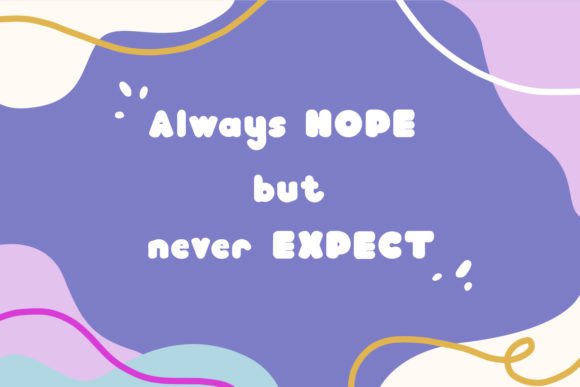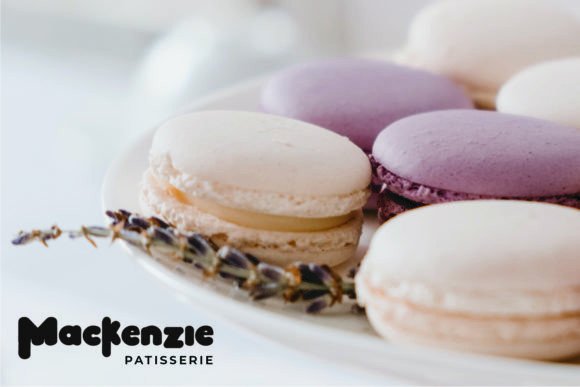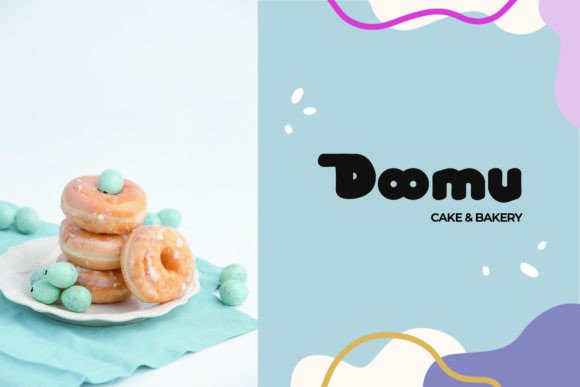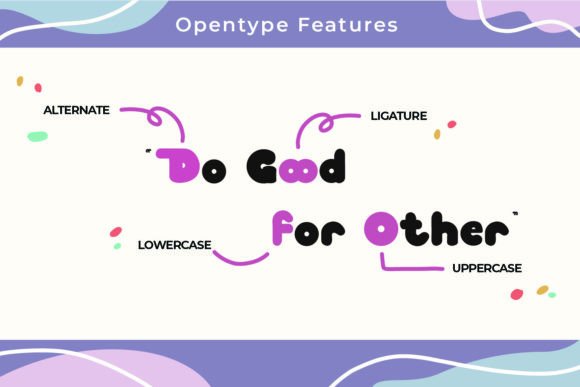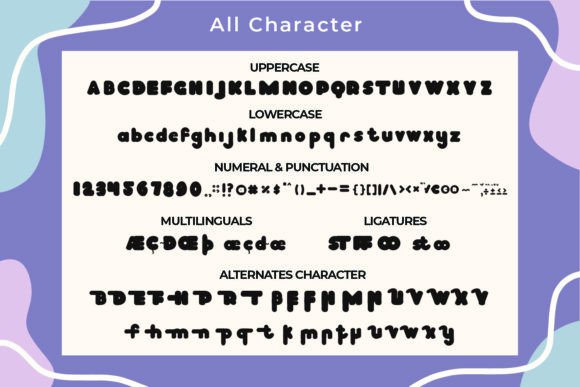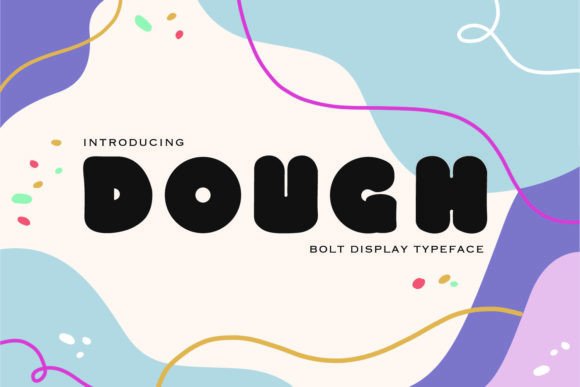
Dough Font: The Cute and Bubbly Display Font for Your Creative Projects
Are you looking for a font that can add a touch of playfulness and whimsy to your designs? Look no further than the Dough Font! This adorable display font is perfect for crafters, designers, and anyone looking to add some personality to their projects. In this article, we’ll dive into the features and benefits of the Dough Font, and explore how it can elevate your creative endeavors.
What is Dough Font?
Dough Font is a cute and bubbly display font that boasts a natural and unique style. Its irregular shapes and rounded edges give it a charming, hand-crafted feel that’s sure to capture attention. The font’s design is versatile and adaptable, making it suitable for a wide range of projects, from branding and advertising to packaging and digital media.
Key Features of Dough Font
- PUA Encoding: The Dough Font is PUA (Private Use Area) encoded, which means you can access all the glyphs and ligatures with ease. This feature allows you to unlock the full potential of the font and explore its creative possibilities.
- Unique Style: The font’s natural and irregular style sets it apart from more traditional fonts. Its bubbly and playful vibe makes it perfect for designs that require a touch of whimsy and fun.
- Versatility: The Dough Font is incredibly versatile and can be used for a wide range of projects, including logos, headings, titles, and more.
Benefits of Using Dough Font
So, why should you choose the Dough Font for your projects? Here are just a few benefits of using this adorable display font:
- Adds Personality: The Dough Font can add a touch of personality and whimsy to your designs, setting them apart from more generic and traditional fonts.
- Enhances Creativity: The font’s unique style and PUA encoding make it easy to experiment and explore new creative possibilities.
Design Ideas with Dough Font
So, how can you use the Dough Font in your designs? Here are a few ideas to get you started:
- Branding and Logo Design: Use the Dough Font to create a playful and memorable logo for your brand or business.
- Digital Media: Add a touch of whimsy to your social media graphics, blog posts, and website headers with the Dough Font.
- Packaging Design: Use the font to create eye-catching packaging designs that stand out on store shelves.
- Crafting and Scrapbooking: The Dough Font is perfect for crafters and scrapbookers looking to add a personal touch to their projects.